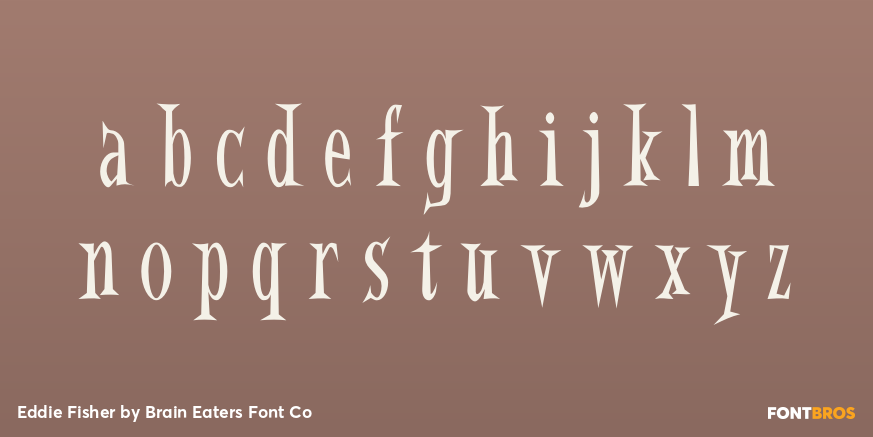
Eddie Fisher
Font Family by Brain Eaters Font Co
Eddie Fisher is a retro serif font family with a distinctly mid-century feel, drawing on 1940s, 1950s, and 1960s styling for a look that feels bold, nostalgic, and full of personality. Its letterforms have the kind of vintage display presence that can instantly give a layout an old-school advertising or classic Americana tone.
The family includes 4 styles—Regular, Bold, Heavy, and Thin—giving you room to shift from lighter headline treatments to more assertive, attention-grabbing typography. That range makes it a strong choice for posters, branding, packaging, signage, and other display work where a retro serif can set the mood quickly and clearly.
Published by Brain Eaters Font Co, this family is especially well suited to projects that want a throwback voice without losing impact. Use it when you need typography that feels vintage, graphic, and memorable.